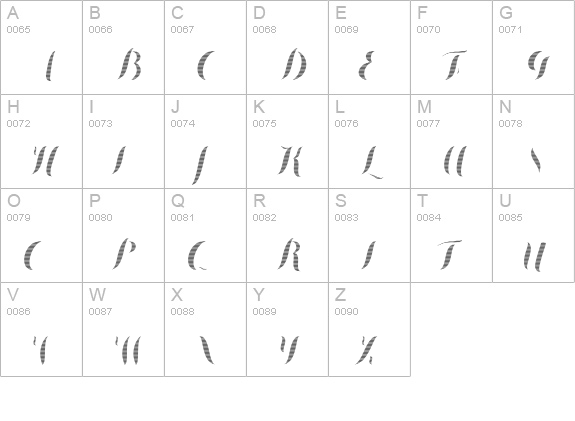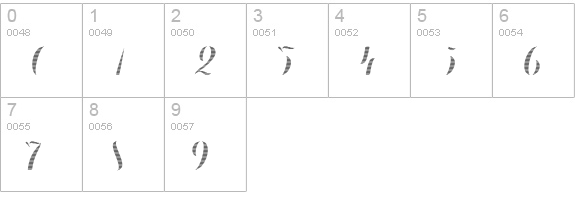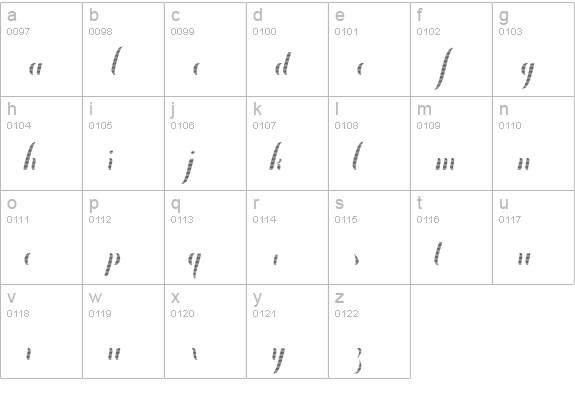
Chameleon Fill Stripe1 font is a captivating and versatile typeface that combines elements of whimsy and sophistication. Its unique design features intricate fill patterns that create a dynamic and eye-catching appearance. This font is perfect for adding a touch of personality to any project, whether it be a logo, branding materials, or social media graphics. What's even better is that Chameleon Fill Stripe1 font is available for free download at FontsMarket.com. Now you can easily elevate your designs with this stunning font without breaking the bank. Don't miss out on the opportunity to add a touch of creativity and flair to your projects with Chameleon Fill Stripe1 font - download it for free today!